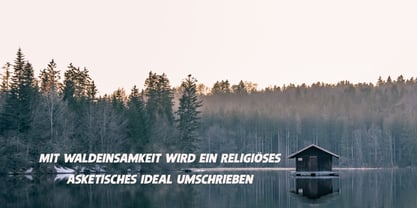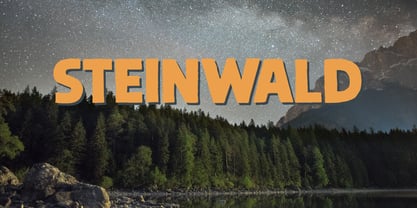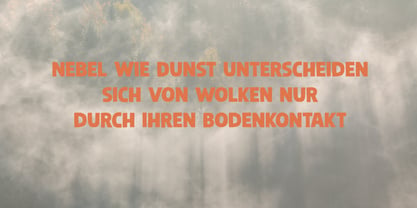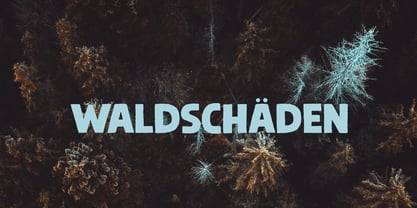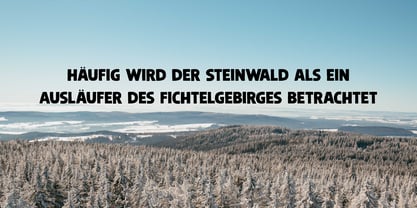
Steinwald Pro
by Hanoded
The Steinwald Pro Font Family was designed by David Kerkhoff and published by Hanoded. Steinwald Pro contains 2 styles and family package options. More about this family
Steinwald font was named after a mountain range slash nature park in southern Germany. I have to admit that I have never been there, but this font was just screaming for a good German name and I settled on Steinewald (which, in German, means Stone Forest).
Steinwald was made by hand and cleaned up by computer. It looks quite neat, but its edges are a bit rough, giving it ‘ye olde handmade look’!
Designers: David Kerkhoff
Foundry: Hanoded